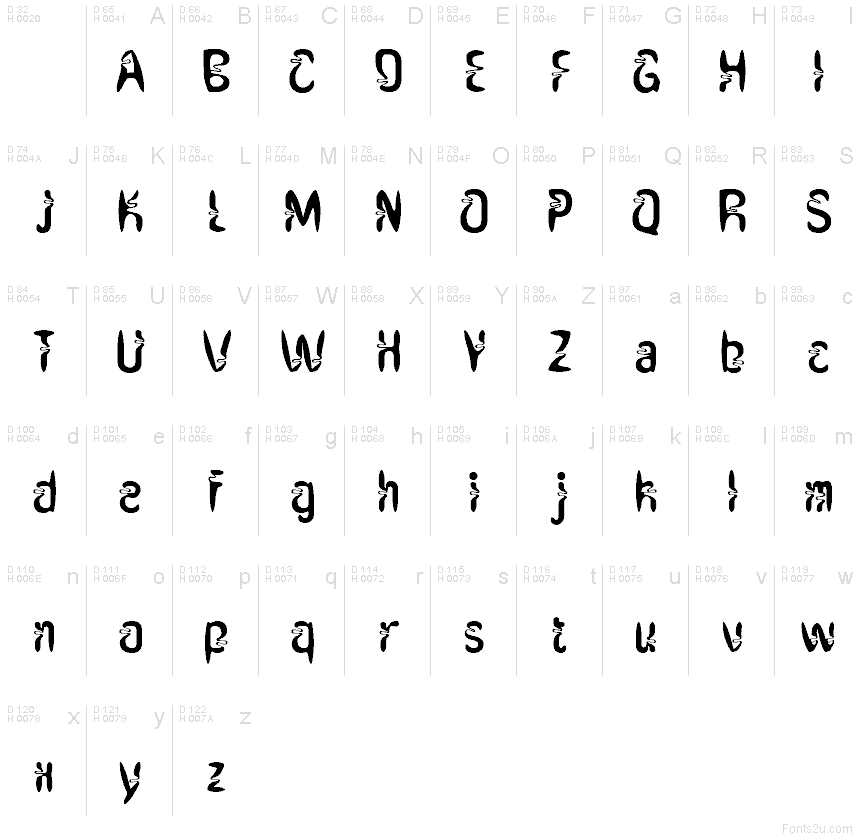
CSHodgeDrawn-Regular Demo
CS Hodge Drawn font by Craft Supply Co. is a free condensed decorative display font that coils with hand-drawn energy. Built within the CS Hodge family, its inky strokes curl into serpent-like terminals, with tight counters and quirky bends that feel both mischievous and precise. The condensed width pulls words into striking vertical silhouettes, while the uneven edges add a tactile, brushy grit that reads like living ornament.
Using CS Hodge Drawn, headlines snap with character—great for psychedelic posters, occult or witchy branding, festival graphics, craft beer labels, skate apparel, and Halloween packaging. The rhythm is compact yet legible, so messages hit hard in small spaces. One simple tip: set it large and pair with a quiet, neutral sans to let this free font’s slithery curves take center stage.